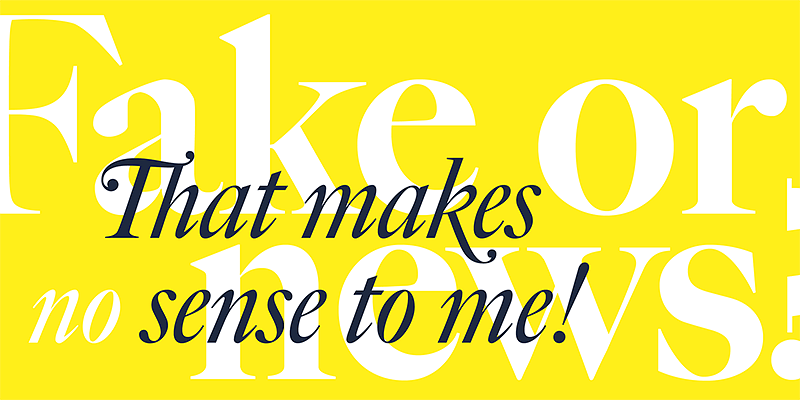
Big Caslon Font Free Download
Big Caslon Font Free Download is a bold and stately display serif typeface based on the 18th-century Caslon typefaces, reimagined for strong, contemporary editorial use. Designed by Matthew Carter, Big Caslon retains the historical charm of classic serif forms while enhancing them with sharp contrast and modern proportions—making it perfect for magazine headlines, book titles, luxury branding, and elegant posters.
Unlike traditional Caslon fonts meant for body text, Big Caslon Font Free Download is specifically designed for use at large sizes, where its distinctive details—like ball terminals, high contrast strokes, and angular serifs—truly shine. It brings gravitas and sophistication to typographic layouts while still feeling fresh and dramatic.
The font commands attention in print and digital settings alike, making it ideal for high-end fashion, culture publications, editorial mastheads, and historical or literary projects with a modern twist.
Big Caslon is more than a revival—it’s a bold reinvention. Classical, powerful, and full of character, it’s the go-to serif for designers who want to make a timeless yet striking typographic statement.